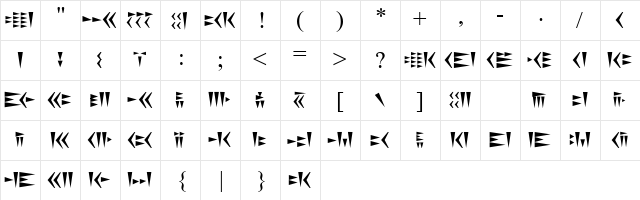
Linguist Old Persian Normal
Design Context for Linguist Old Persian Typeface
Linguist Old Persian takes a measured approach to typography — its balanced proportions and neutral character make it a reliable workhorse for both digital and print work.